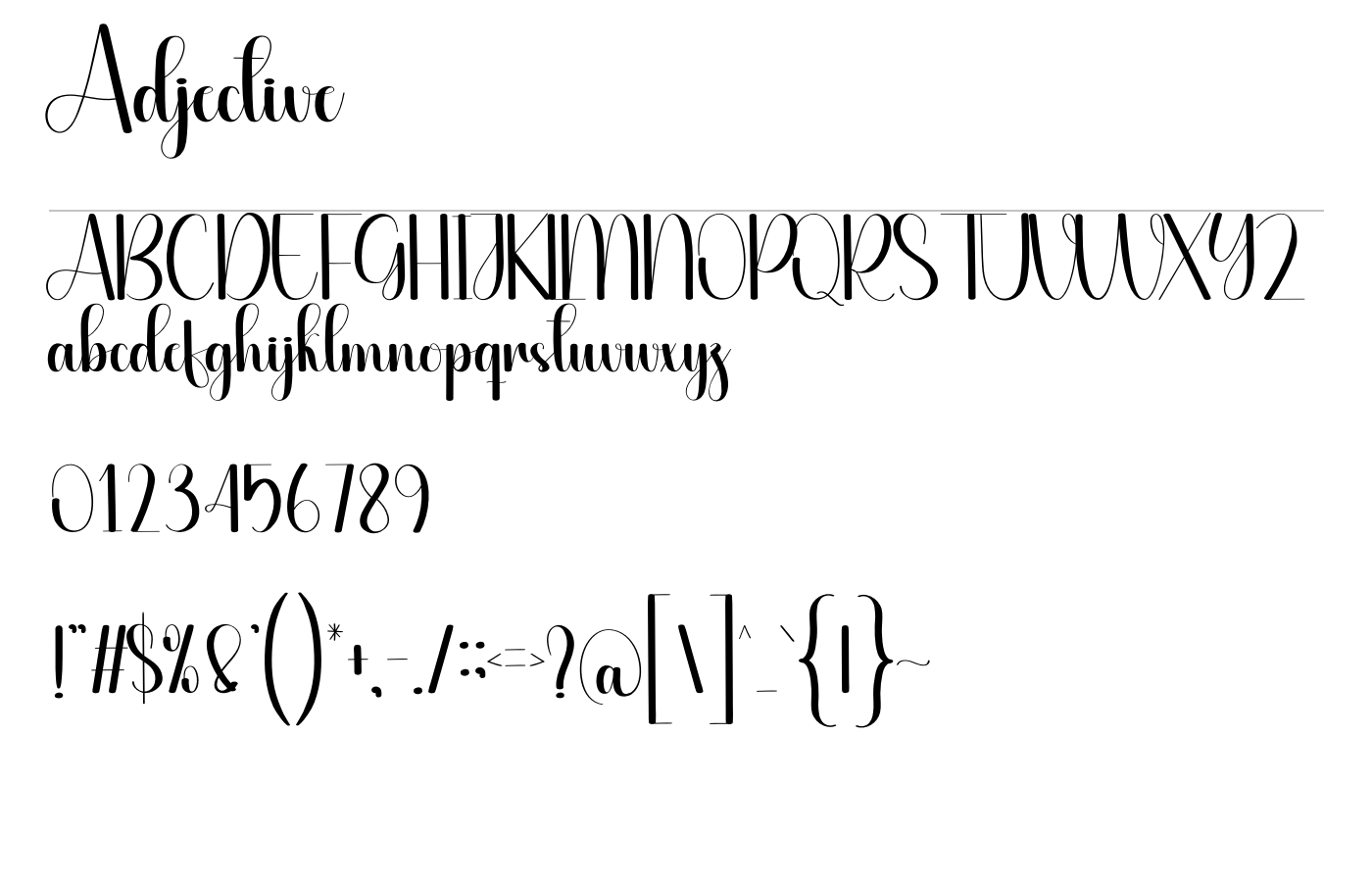
Adjective Font is a delicate and elegant serif script with a tall, narrow form that combines fine strokes and playful swashes for a sophisticated yet whimsical feel. Its high contrast and unique letter shapes make it ideal for fashion branding, invitations, and editorial headlines where a stylish, graceful touch is desired. This font works beautifully in settings that call for a refined, artistic flair without sacrificing readability.
Adjective Font